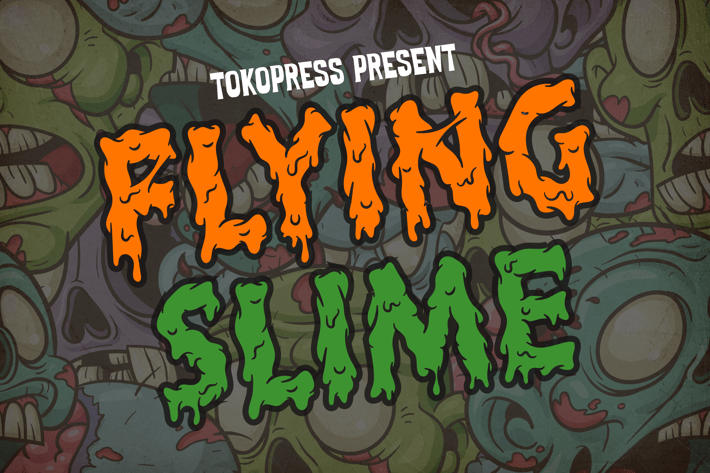
Flying Slime - Spooky Font
Flying Slime - Scary Font
Flying Slime is a horror display font crafted with a slimy texture, spooky vibe, and dripping letterforms that evoke dread, tension, and eerie curiosity. Its chaotic outlines and organic, stretched edges give it a terrifyingly expressive feel—perfect for Halloween campaigns, YouTube thumbnails, or movie posters. This font thrives in eerie contexts, channeling a cinematic horror style with high visual contrast and grotesque flow.
Whether you're designing a haunted house poster, a horror game splash screen, or a chilling Halloween party invite, Flying Slime sets the tone with unsettling energy. It invites fear while keeping things bold and legible—perfect for attention-grabbing graphics in thrill-heavy projects. This font makes monsters memorable and fright fun. It’s made for brands that want to scream louder, creep harder, and stand out in the spooky crowd.
Key Features
Perfect For :
- Halloween event posters & social media content
- Horror movie titles, thumbnails, and trailers
- YouTube horror/thriller content intros
- Game UI for haunted or survival-horror themes
- Merch design for horror-inspired apparel or collectibles
Design Strengths:
- Organic, dripping strokes with uneven edges
- High-impact uppercase letterforms that amplify fear
- Raw and hand-crafted style that oozes character
- Great legibility even at large sizes—ideal for horror headlines